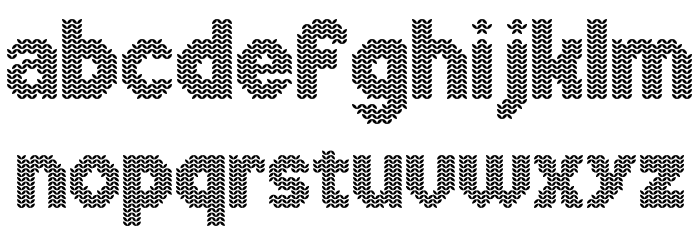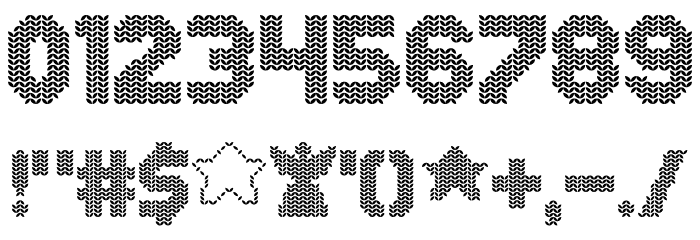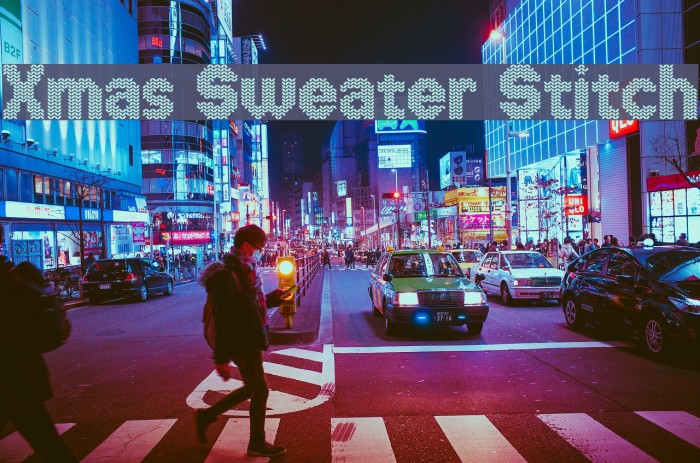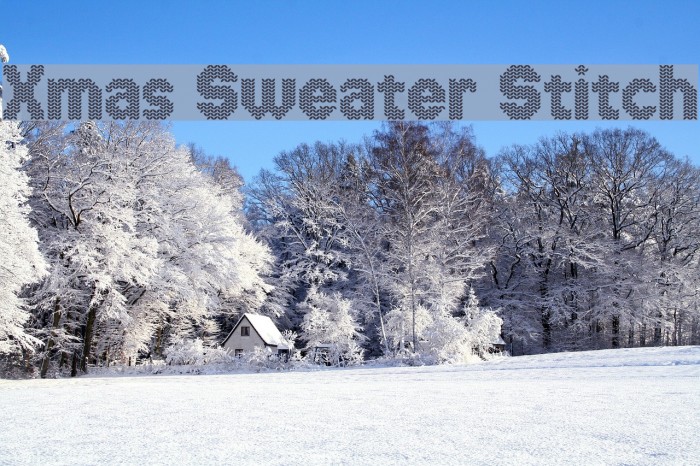
Xmas Sweater Stitch Font
This font features a unique and playful design that mimics the appearance of a knitted sweater pattern. Each character is composed of intricate zigzag and wave-like stitches, creating a textured and cozy look reminiscent of traditional holiday sweaters. The uppercase and lowercase letters, along with numbers and special characters, maintain a consistent stitch pattern that adds a whimsical and festive touch. The font's decorative style makes it ideal for seasonal designs, evoking a sense of warmth and nostalgia.
A playful, knitted sweater-style font with a festive, textured appearance.
- Proposed Projects: Perfect for holiday greeting cards, festive posters, winter-themed invitations, and decorative crafts.
- Use Case: Headlines, Logos, Decorative text